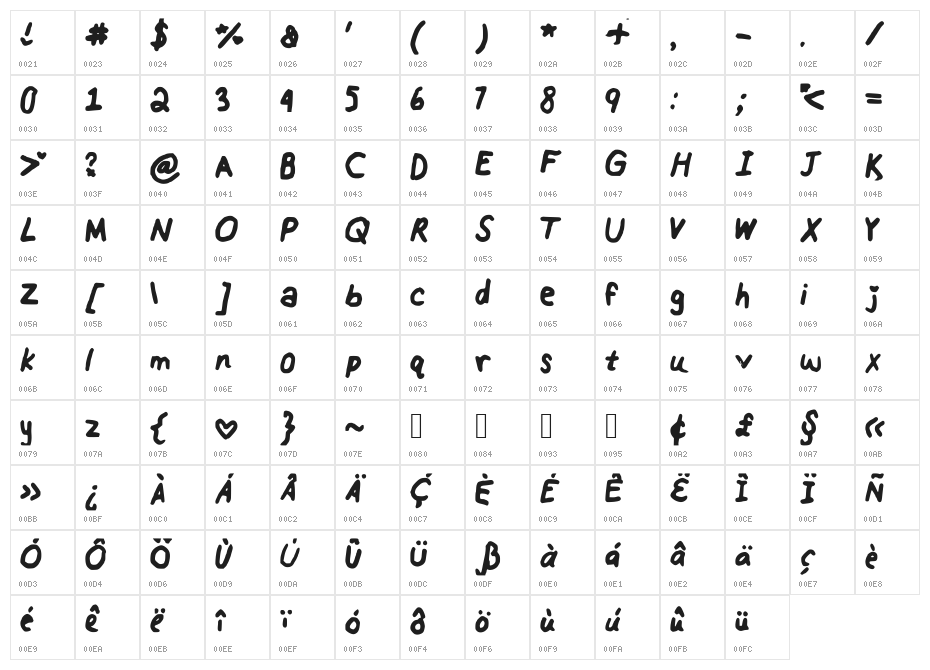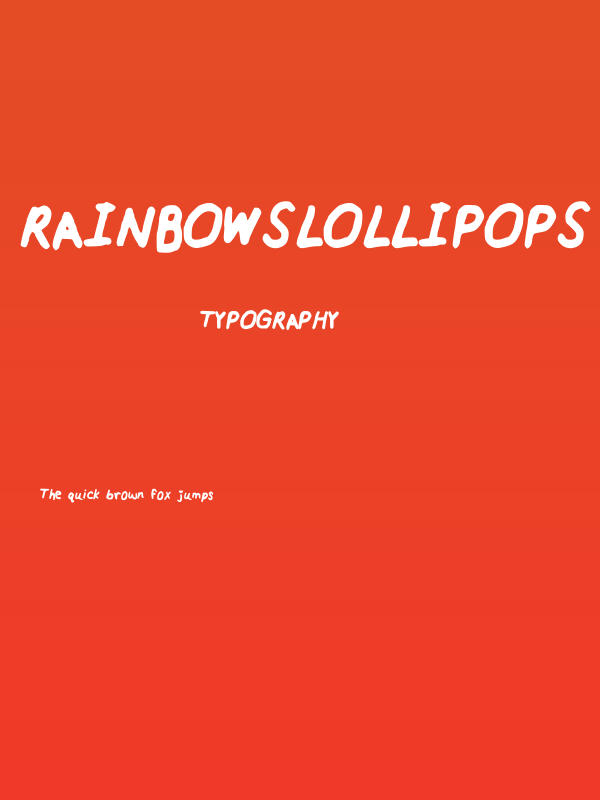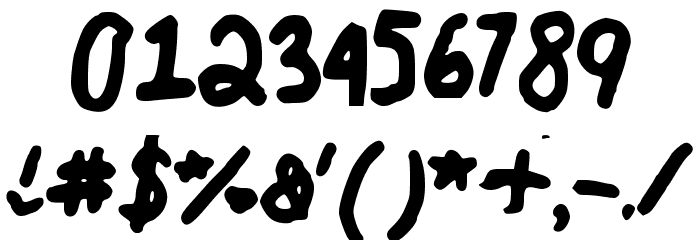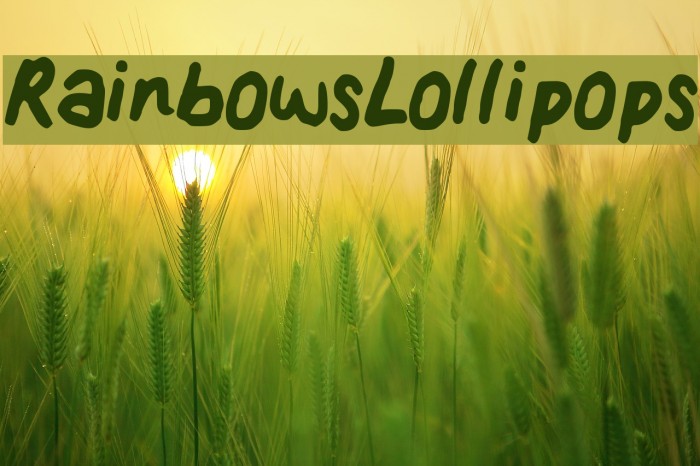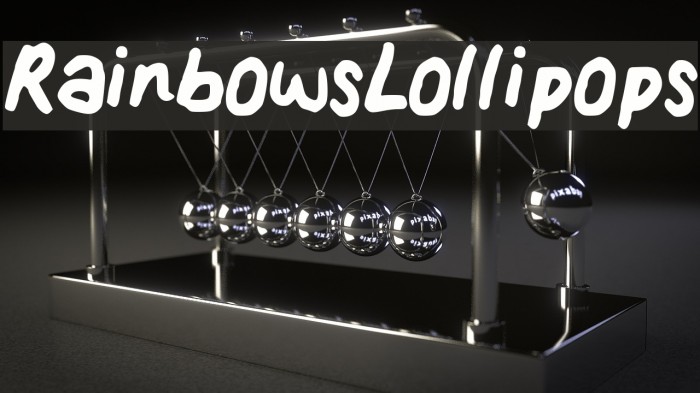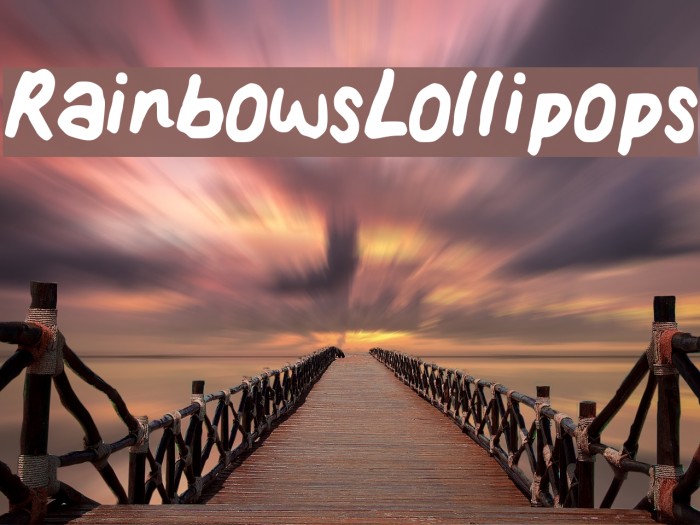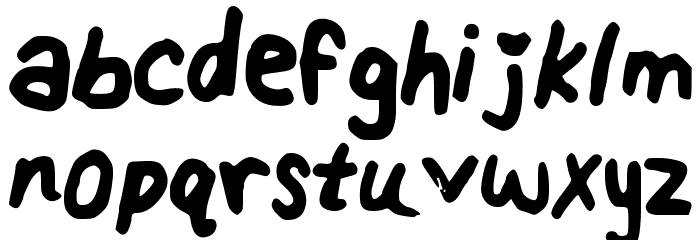
RainbowsLollipops Font
RainbowsLollipops Description
This playful and whimsical font features a handwritten style with bold, rounded characters. The uppercase and lowercase letters are slightly irregular, giving it a casual and friendly appearance. The numbers and special characters maintain the same playful aesthetic, making it suitable for informal and creative projects. The strokes are consistent in thickness, providing a uniform look across all characters. This font is perfect for projects that require a fun and approachable vibe, such as children's books, party invitations, or playful branding materials.
| Overall Style | Playful |
| Use Case | Headlines, Logos, Creative projects |
| Proposed Projects | Ideal for children's books, party invitations, playful branding, and creative projects. |